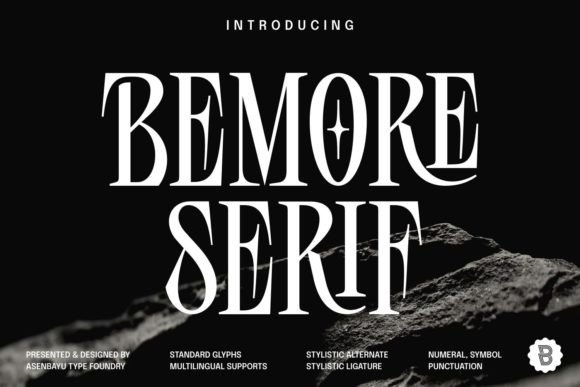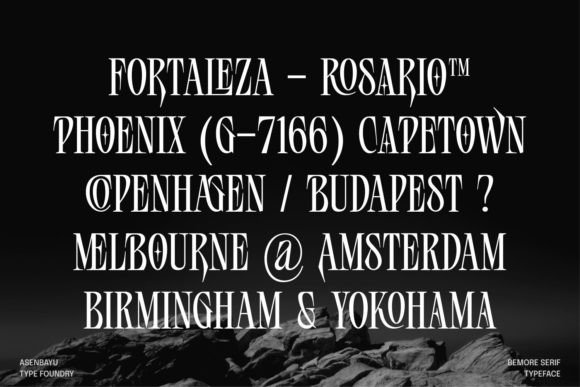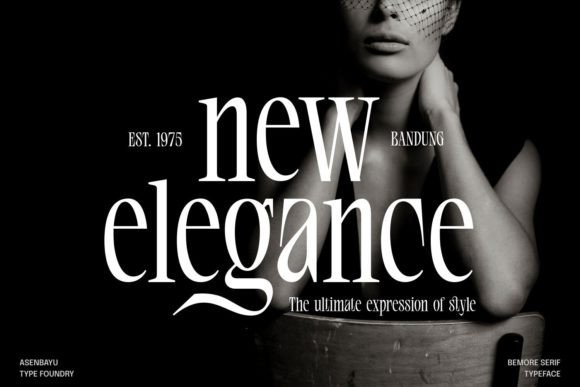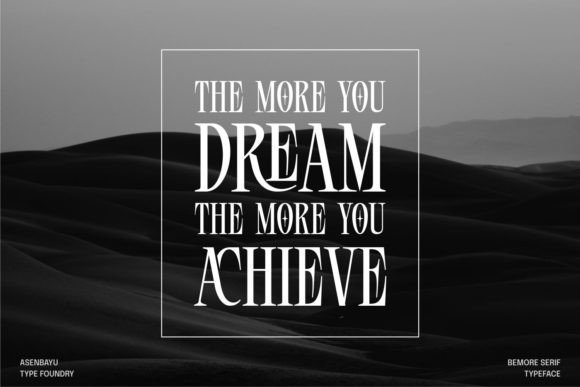
Bemore Serif Font
About the Bemore Serif Font
From logos to headlines, the Bemore Serif Font is the perfect choice for making a lasting impression. Bemore Serif is a decorative serif font that has a distinctive serif shape. This font has sleek and tall condensed letter proportions so it can give an attractive and elegant impression. You can use this font in both modern and vintage designs. This font is suitable for attractive packaging label designs, unique desired logos, trendy poster designs, fashion, and many more.
Bemore Serif Font Usage Examples
Bemore Serif Font Example